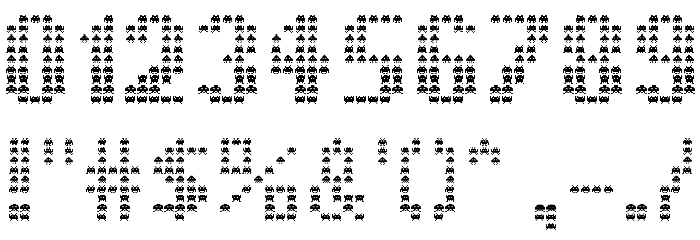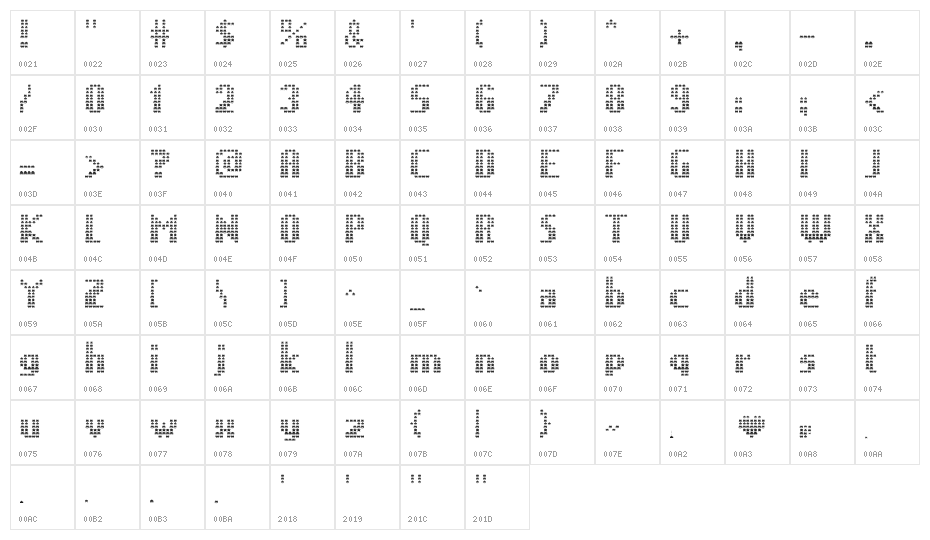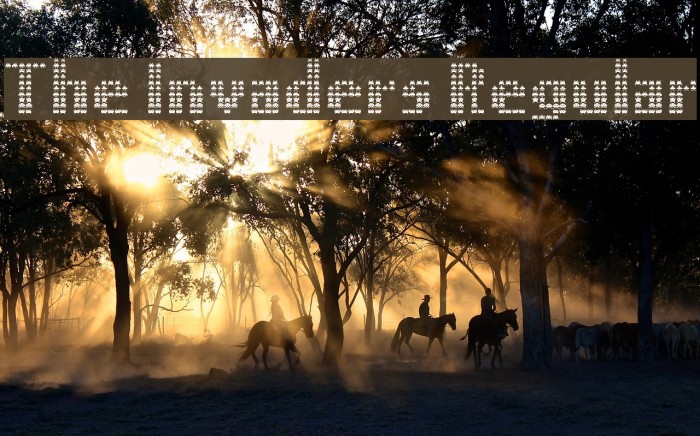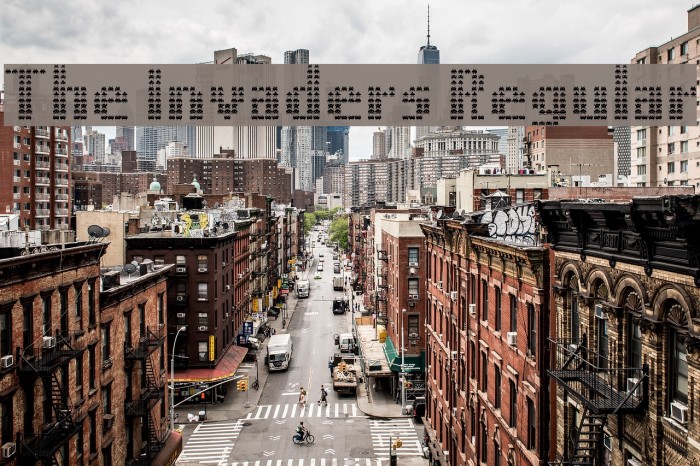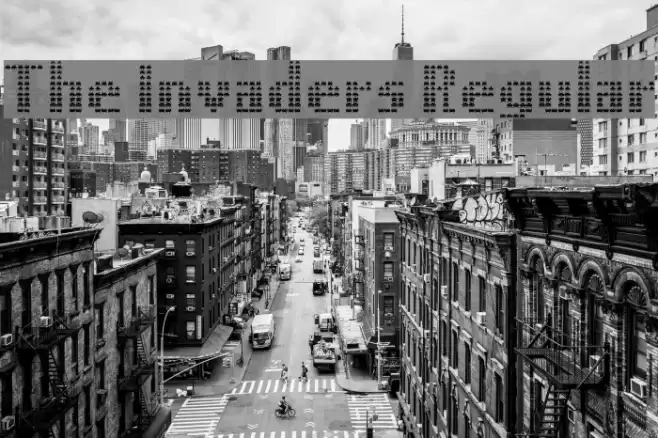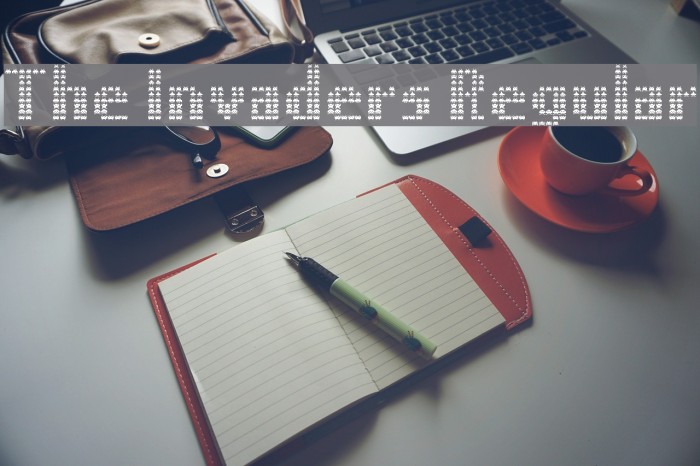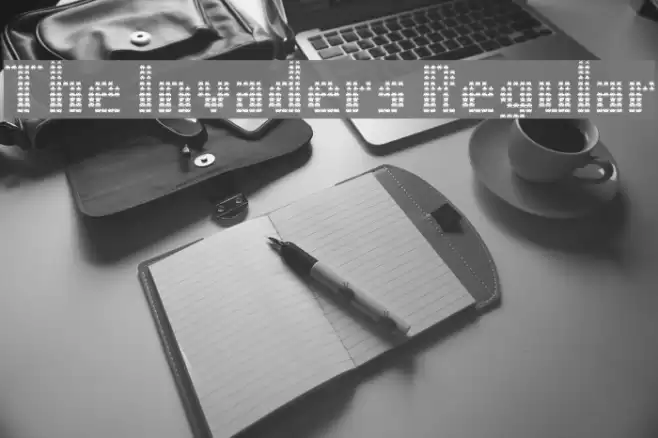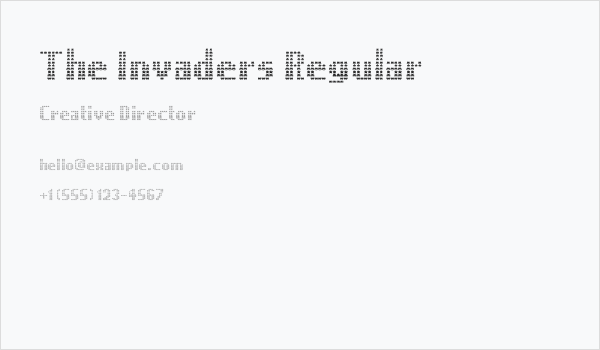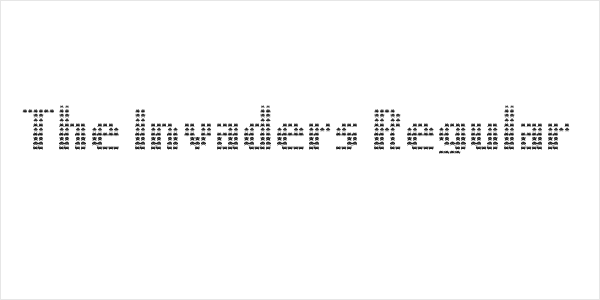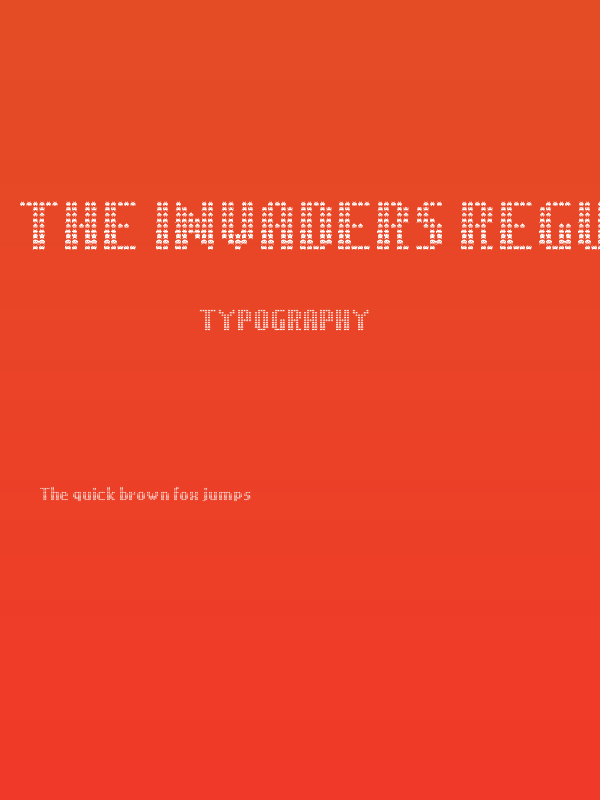
The Invaders Regular Font
The Invaders Regular Description
This font is a playful and nostalgic design that captures the essence of retro video games. Each character is composed of tiny pixelated alien invaders, reminiscent of classic arcade games. The design is highly decorative, with a unique texture that adds a sense of fun and whimsy. The characters are evenly spaced, maintaining a consistent pattern throughout. This font is perfect for projects that aim to evoke a sense of nostalgia or cater to gaming enthusiasts. Its distinctive style makes it ideal for headlines or logos where a bold statement is desired.
| Proposed Projects | Ideal for video game-themed designs, retro posters, event flyers, and playful branding. |